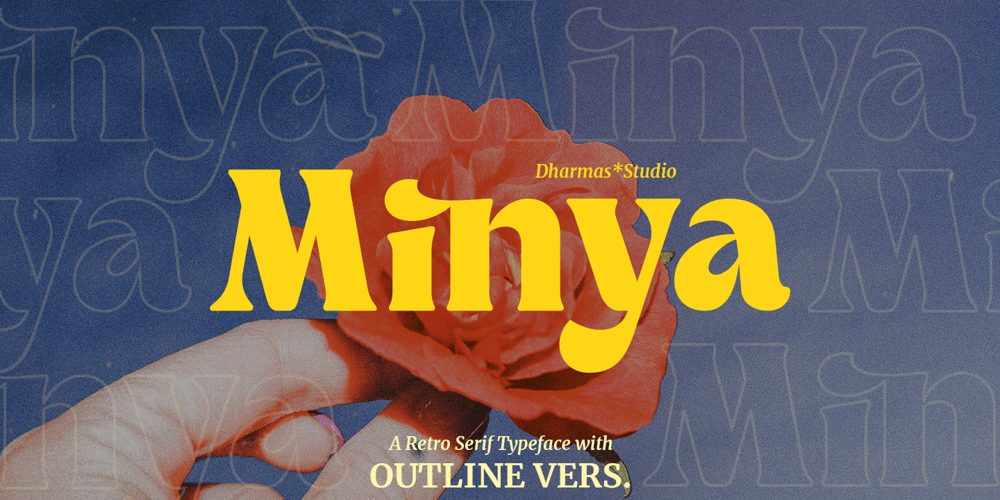
Minya Font Family was designed by Ahmad Jamaludin and published by Ahmad Jamaludin. Minya contains 4 styles and family package options. Inspired by all the retro aesthetics making a comeback, we’re presenting our new retro serif with Outline Version, Minya!Minya – A serif font with both a modern and retro look. Has an Outline version perfect for creating nostalgic yet still elegant designs such as logos, packaging, editorial, and any projects. It makes a high level of legibility.Minya – This font has more than 34 unique alternates and ligatures that give your logo, business card, and another project to a unique vintage look. It has an Italic version too so make your project more versatile!Features : Regular, Outline, Italic, Outline Italic Alternate and Ligature Instructions ( Access special characters, even in circuit design ) Letters, numbers, symbols, and punctuation Use in many programs even in Canva Multilingual Support Language Support: Danish, English, Estonian, Filipino, Finnish, French, Friulian, Galician, German, Gusii, Indonesian, Irish, Italian, Luxembourgish, Norwegian Bokmål, Norwegian Nynorsk, Nyankole, Oromo, Portuguese, Romansh, Rombo, Spanish, Swedish, Swiss-German, Uzbek (Latin)Come and say hello over on Instagram! https://www.instagram.com/dharmas.studio/Dharmas Studio